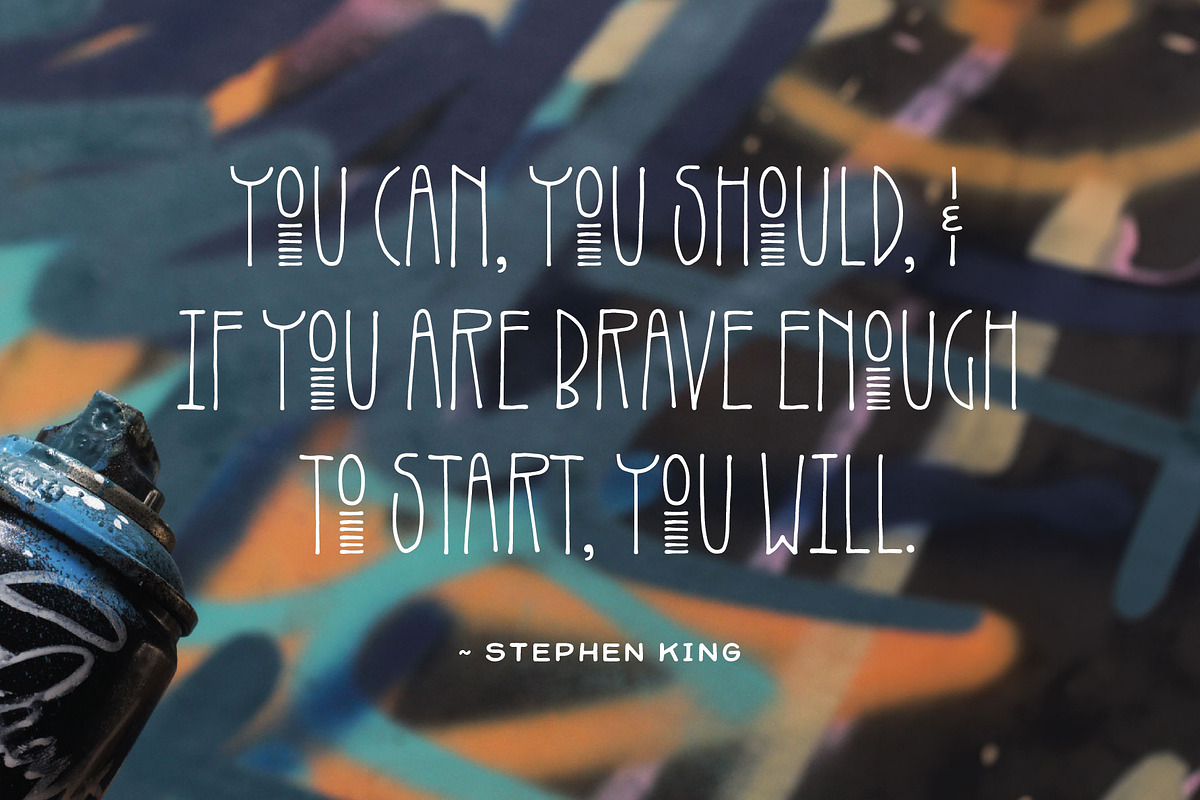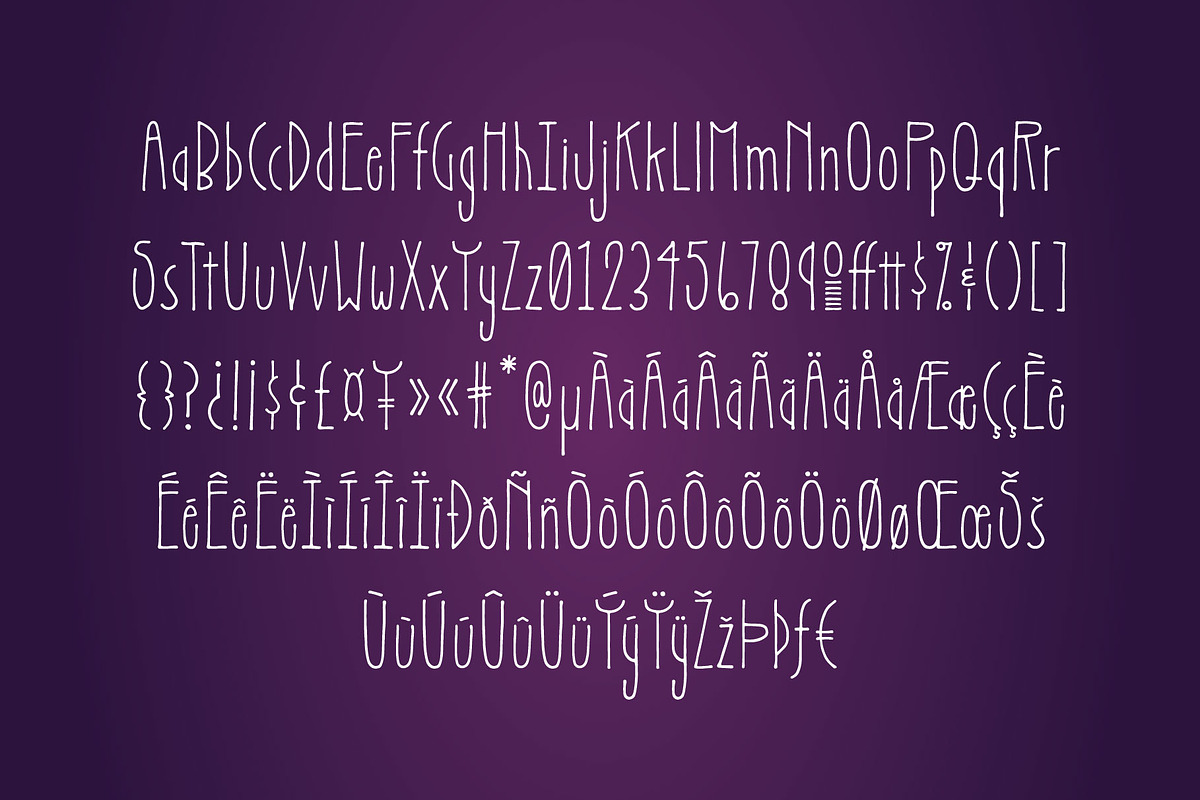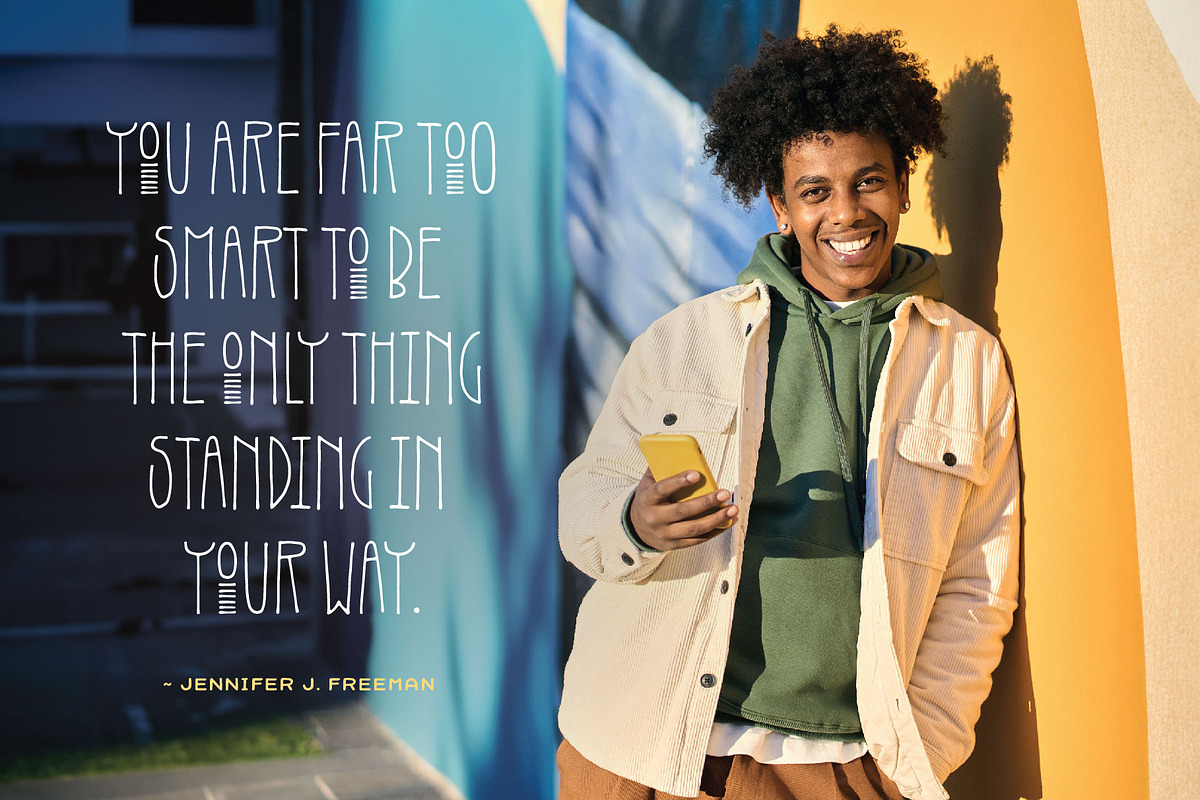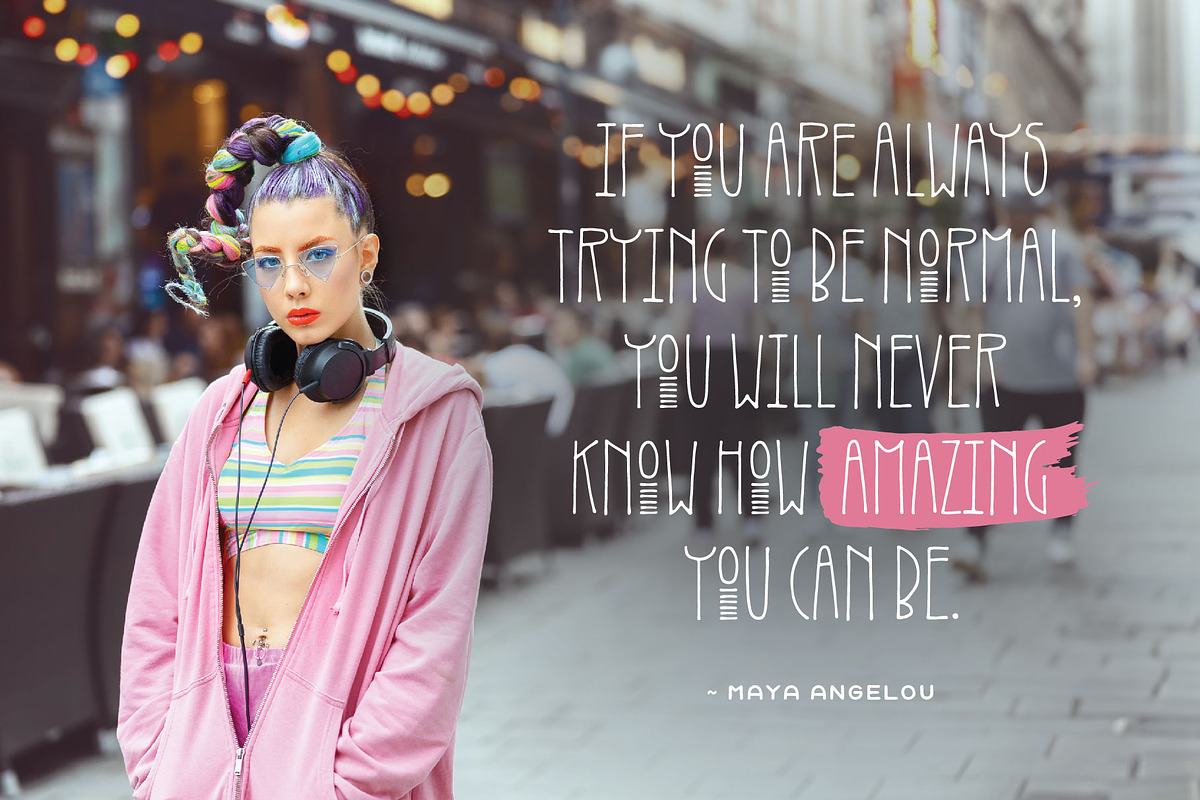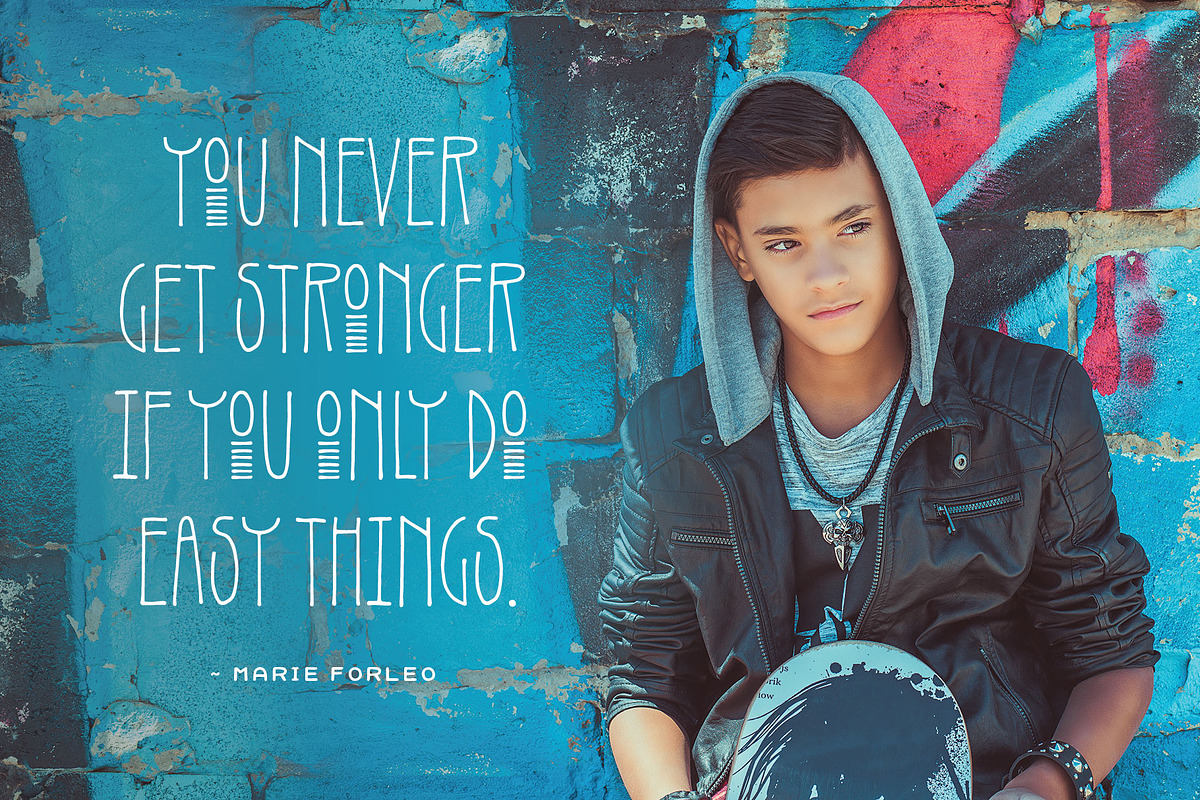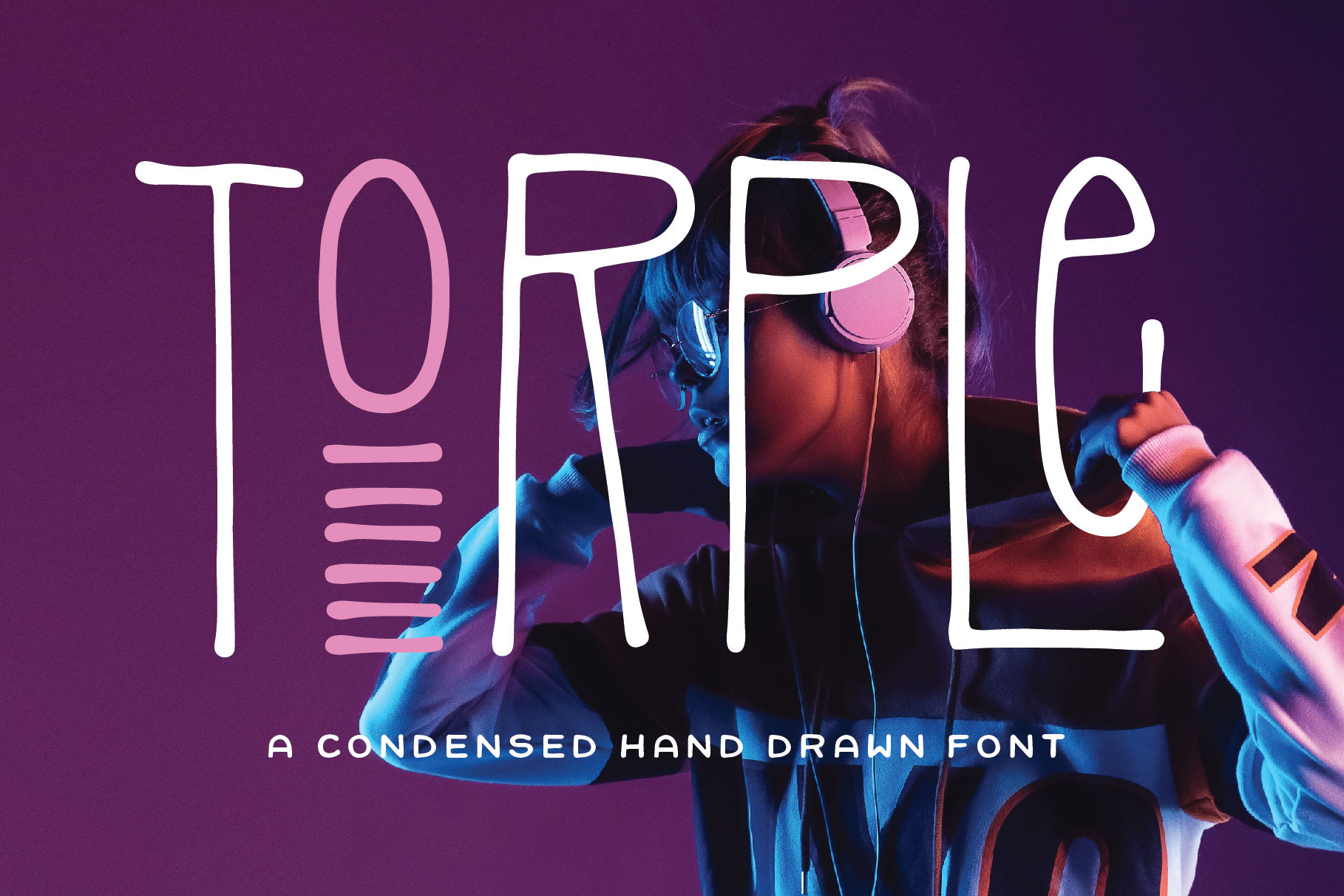
Torple Font
Meet Torple: a slim, condensed sans serif font with a unique charm. The hand drawn style adds friendliness without being messy or difficult to read. Included in the download are two variations that offer distinct styles: Torple Regular and Torple Caps.